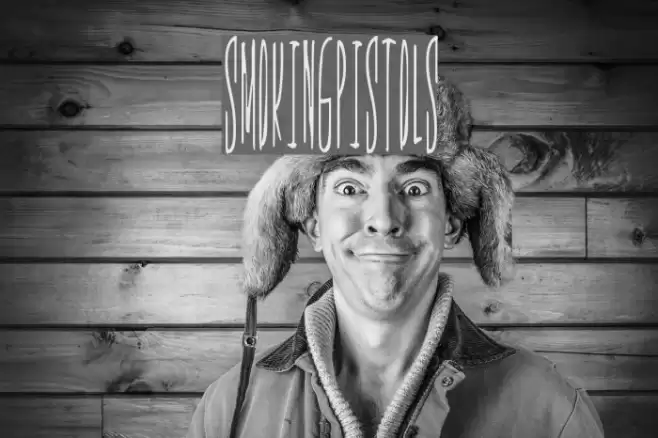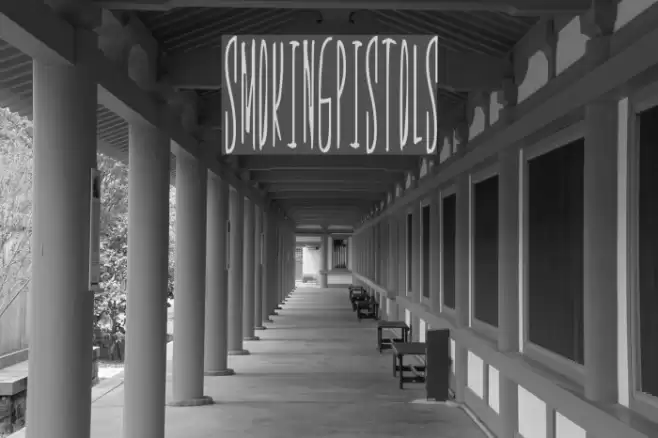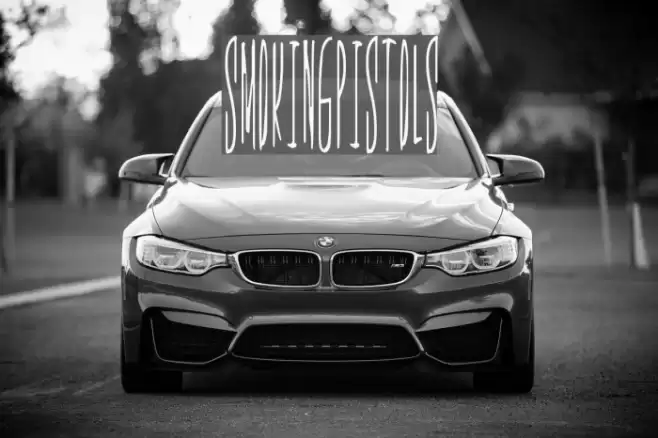
SmokingPistols Font
SmokingPistols Description
This font features an elongated and narrow design, giving it a distinctive and striking appearance. The characters are tall and thin, with a slightly irregular and hand-drawn quality that adds a unique charm. The uppercase and lowercase letters maintain a consistent height, contributing to a cohesive look. The numbers and special characters follow the same slender style, ensuring uniformity across all glyphs. This font's artistic flair makes it suitable for creative and unconventional projects, where a bold statement is desired.
A tall, narrow, and artistic font with a hand-drawn feel from Uncategorized fonts.
- Proposed Projects: Ideal for posters, album covers, artistic branding, and creative headlines.
- Character Spacing: Tight